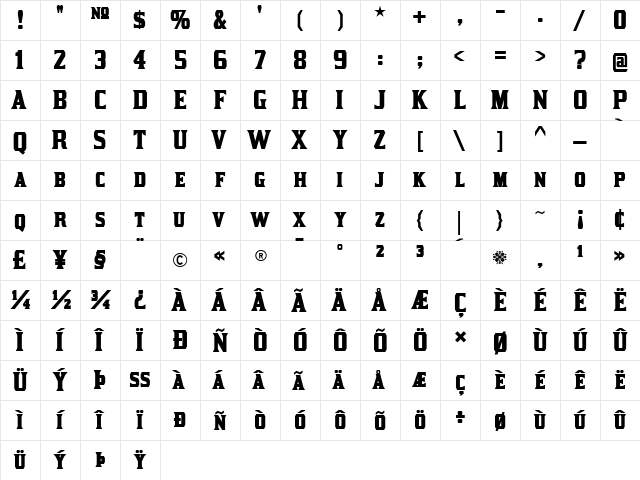
Kirsty Bold
Design Context for Kirsty Typeface
Kirsty offers clean, dependable letterforms without strong stylistic allegiance, making it a practical choice for designers who need flexibility. Its bold stroke weight gives it real presence on the page.
Pro Tip: Use Kirsty in both headline and body roles to test its range before committing to a single application.